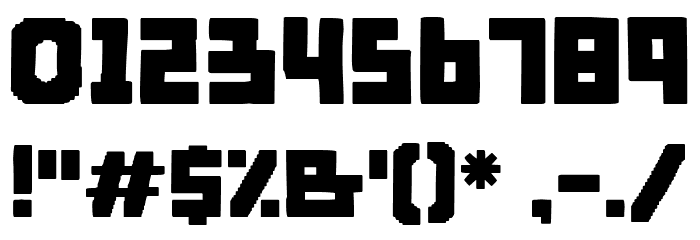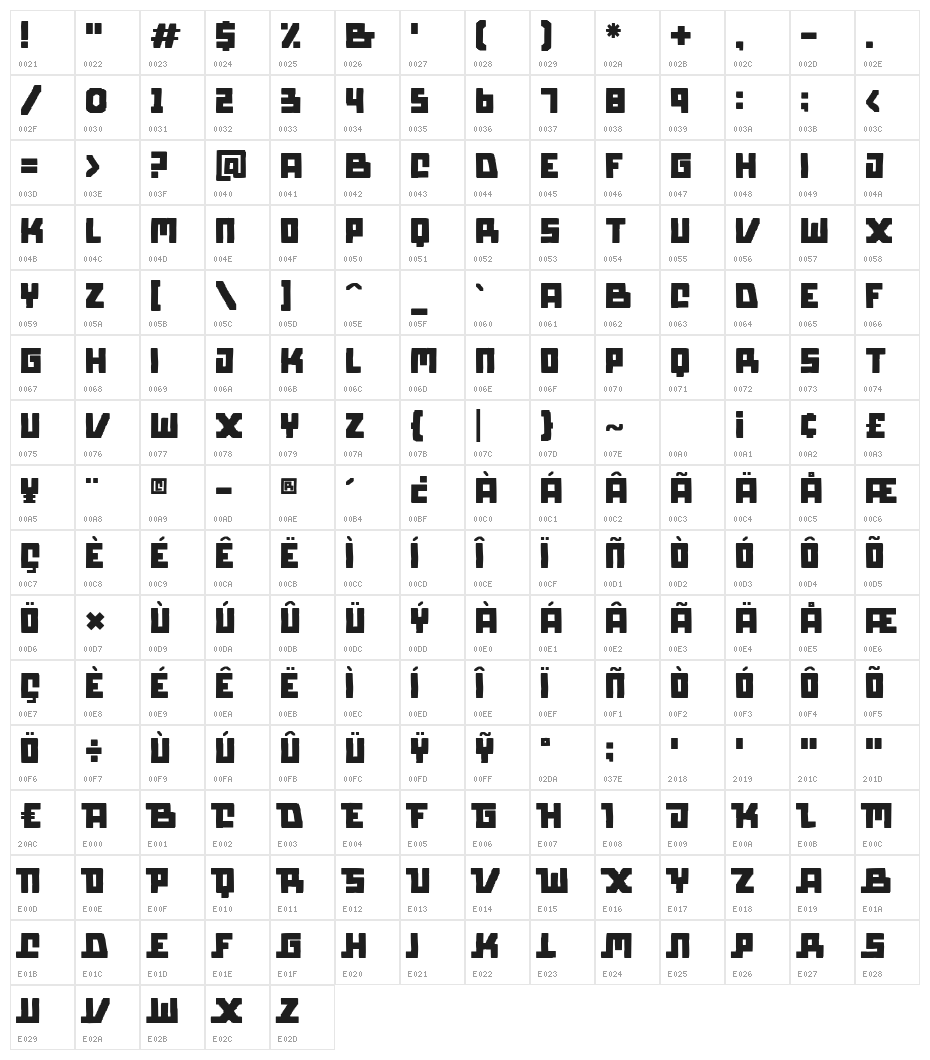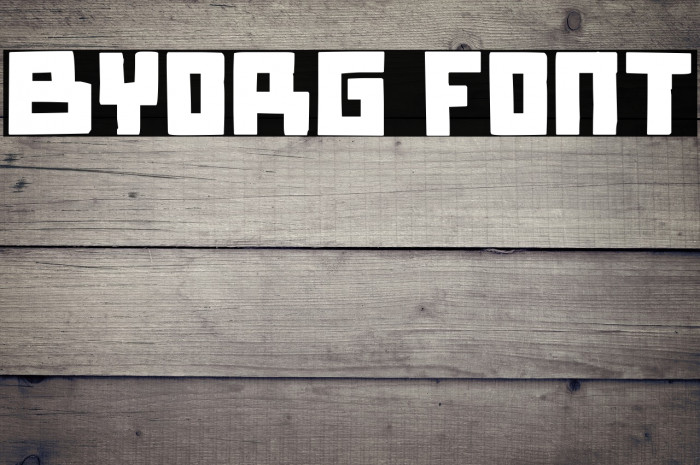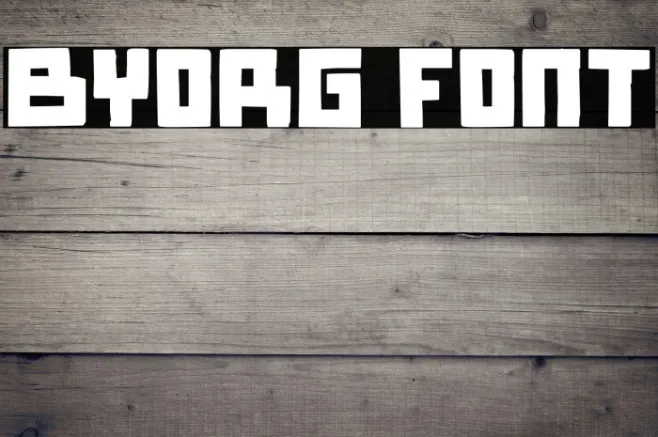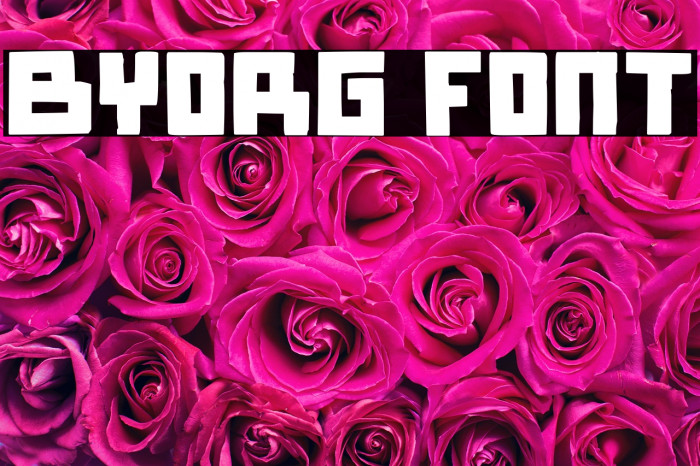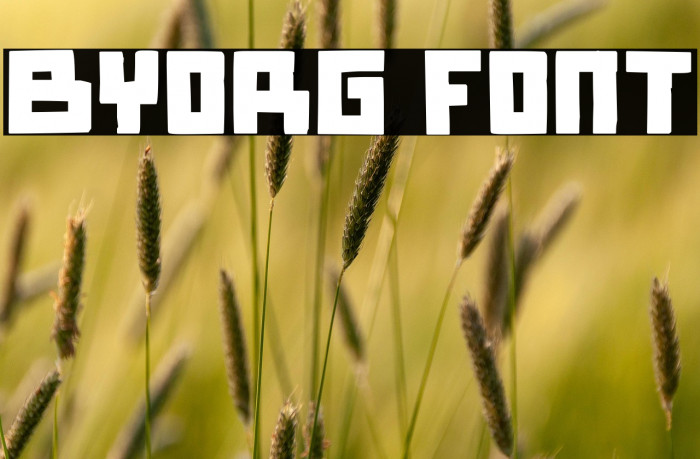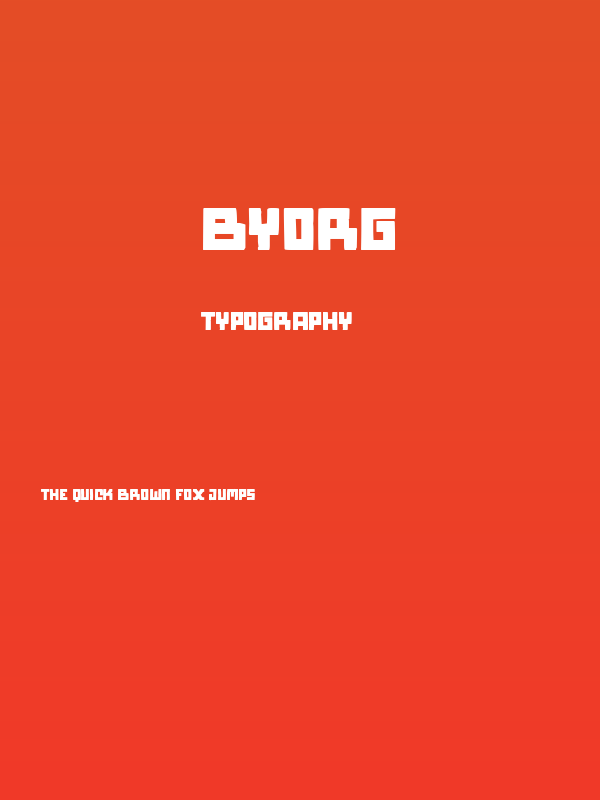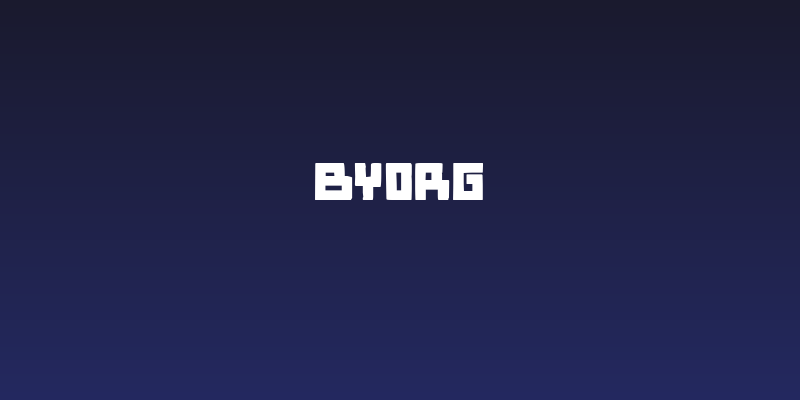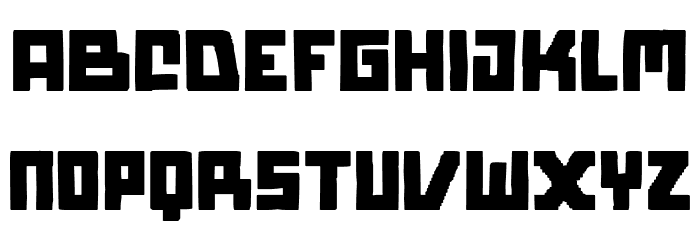
Byorg Font
Byorg Description
This font features a bold, geometric style with thick, blocky characters that convey a sense of strength and modernity. The uppercase and lowercase letters maintain a consistent height, contributing to a uniform appearance. The numerals and special characters are designed with the same boldness, ensuring a cohesive look across all text. The angular edges and straight lines give it a futuristic feel, making it suitable for attention-grabbing designs. The font's heavy weight and solid structure make it ideal for impactful headlines and logos.